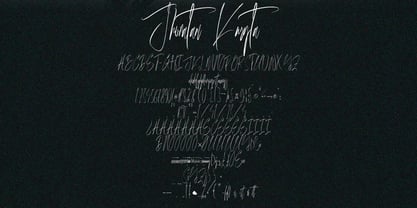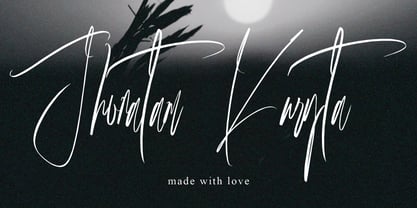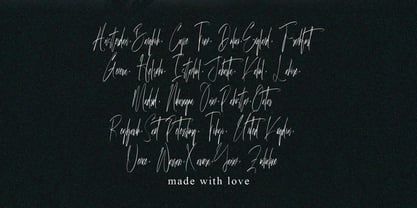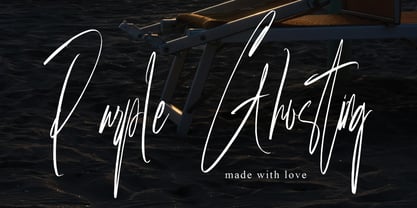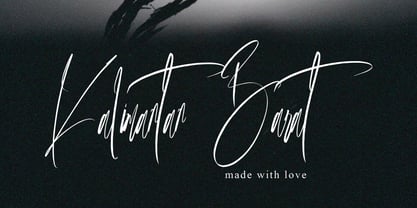
Jhonatam Kuryta
by Ayska
The Jhonatam Kuryta Font Family was designed by Dhoni Trihatmoko and published by Ayska. Jhonatam Kuryta contains 1 styles. More about this family
Unveiling Jhonatam Kuryta: An exquisite blend of contemporary verve and timeless grace, drawing inspiration from the valued elegance of hand-drawn scripts. Brimming with refined panache, Jhonatam Kuryta is a fastidiously crafted font—an embodiment of savoir-faire—it casts an aura of refined sophistication over digital creations. Its unique allure is hard to resist; embedding distinctive style into your digital diary entries, infusing your invitations with a bespoke finish, and expressing deep emotions through bespoke greeting cards. Immerse yourself in the enduring and inventive beauty of Jhonatam Kuryta. Let this font be the distinguishing element of your photo collections or handcrafted accents. Use it to transform the mundane into visually arresting masterpieces, sprinkling a touch of magic into your digital adventures. Succumb to the enthralling charm of Jhonatam Kuryta—it illuminates your path to crafting memorable artistry. Let the invigorating depth of Jhonatam Kuryta spark your creativity, leading your artistic spirit into the realm of refined digital artistry.
Designers: Dhoni Trihatmoko
Foundry: Ayska